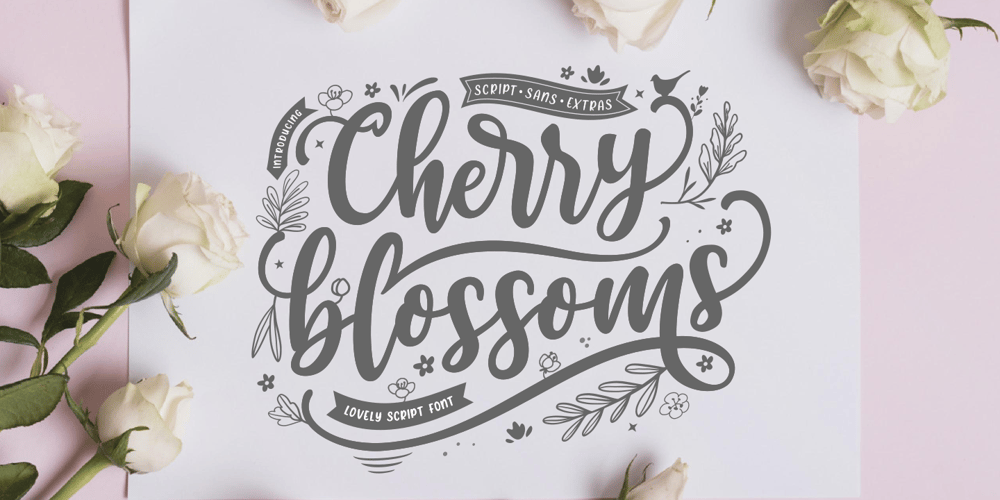
Cherry Blossoms Script
Cherry Blossoms Script font
Cherry Blossoms Script Font Family was designed by Zeenesia Studio and published by Zeenesia Studio. Cherry Blossoms Script contains 3 styles and family package options. Introducing Cherry Blossom FontCherry Blossom is sweet handwritten font duo, come with beauty font, script, serif and included doodles who makes your project will be perfect.Cherry Blossom comes with many alternate character and . Together or separate they are perfect for Invitation, wedding, tshirt design, quotes, mug, bag canvas, greeting cards, branding, stationery design, social media, packaging, prints and many more! If you combine them with the illustrations – you can create even more typographic designs, logos, labels and seasonal cards.